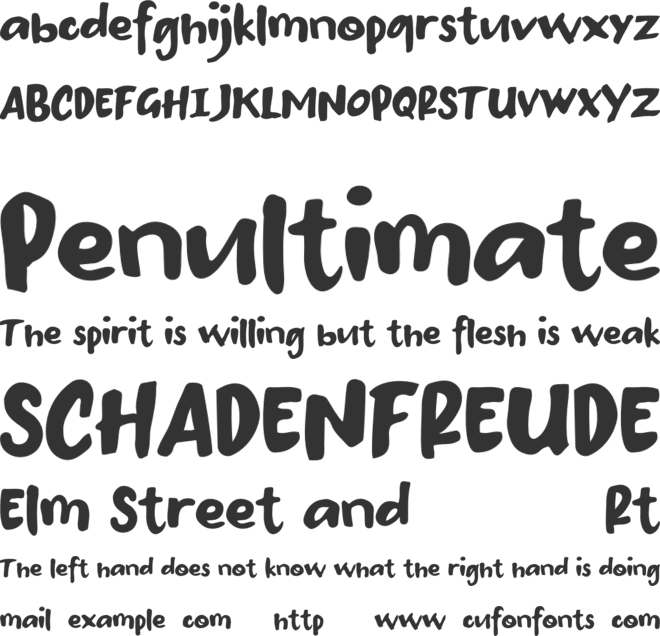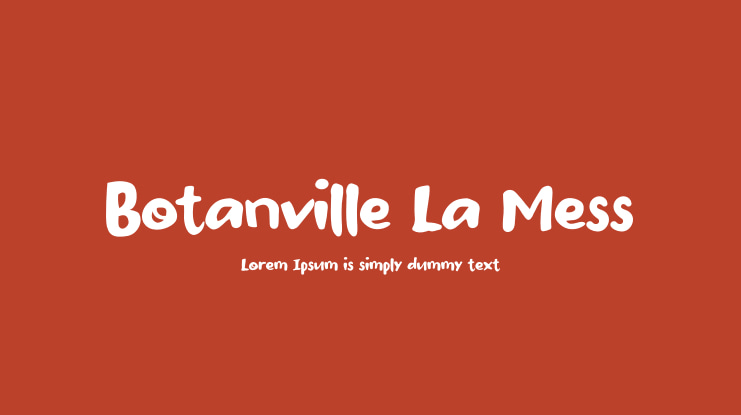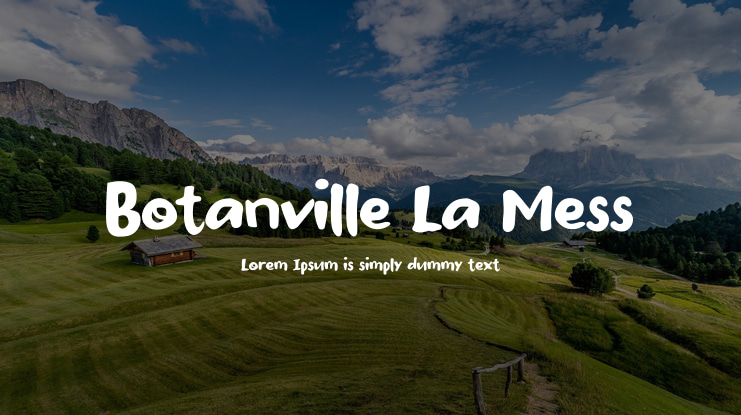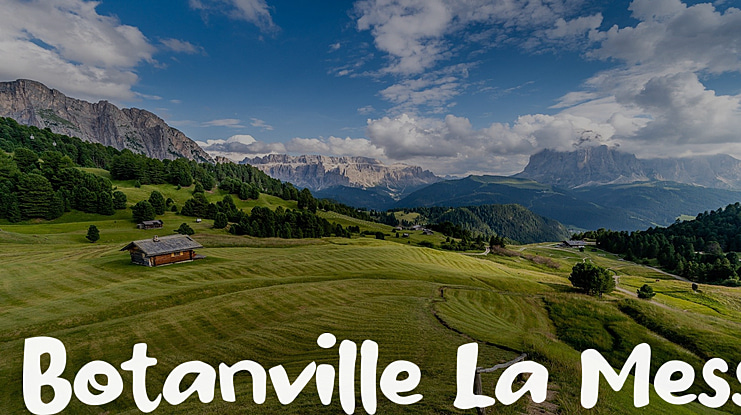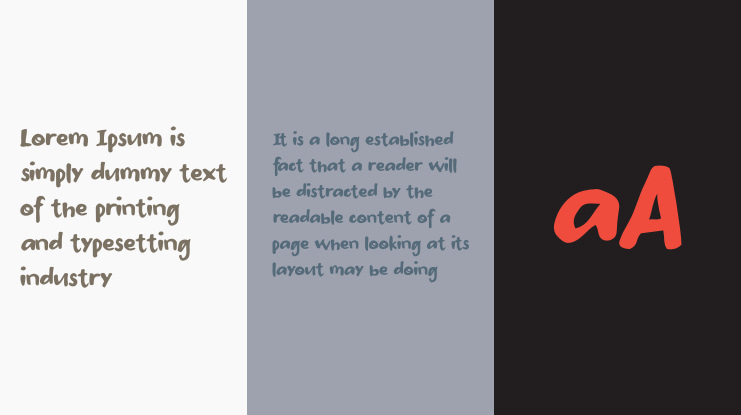
Botanville La Mess Font
A Botanville La Mess Font with realistic scribbles pen styles. This set can make your design more realistic.
While other handwritten fonts make it difficult to avoid repeating letters, Botanville La Mess is designed to use both uppercase and lowercase interchangeably, and has alternates for each letter and number. This way, you can save time avoiding letter patterns and make your text look totally hand-made!
Botanville La Mess font preview